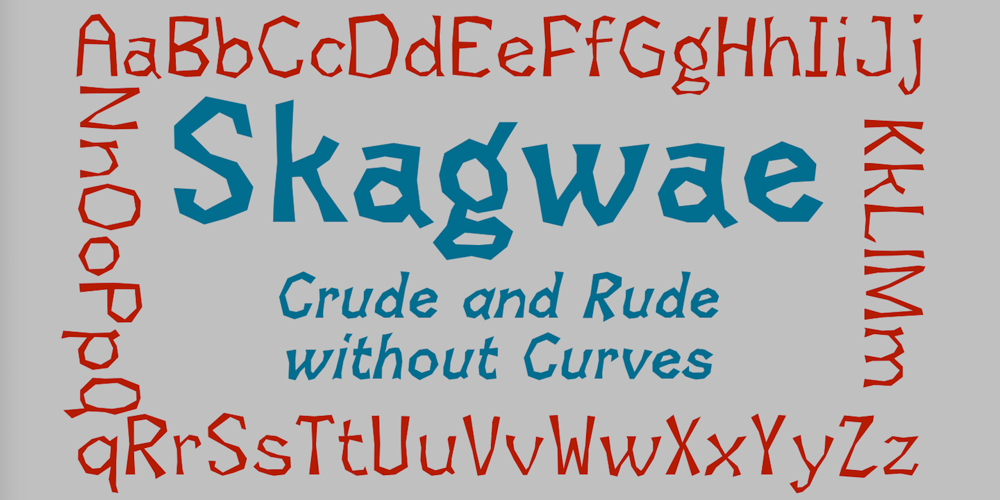
Skagwae Font Family was designed by Robert Schenk and published by Ingrimayne Type. Skagwae contains 9 styles and family package options. The characters of Skagwae have no curves, just straight line segments. The letter shapes themselves are fairly standard, but the choppy line segments used to construct them give the fonts a crude, unfinished look that is highlighted at large point sizes. At small point sizes the fonts are surprisingly legible.The family has nine styles. The regular, bold, italic, bold italic, shadow, and shadow inside styles are proportionally spaced. Shadowinside is very similar to regular but is spaced to be used in a layer with the shadow style. SkagwaeMono-Regular and SkagwaeMono-Bold are monospaced versions of the family. A third monospaced style, SkagwaeMono-Rippled, is a distorted version with squiggly lines full of curves.